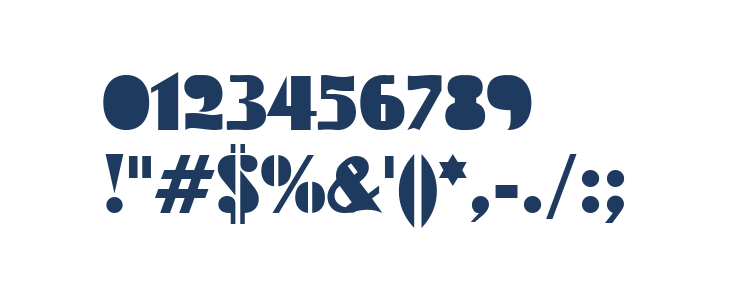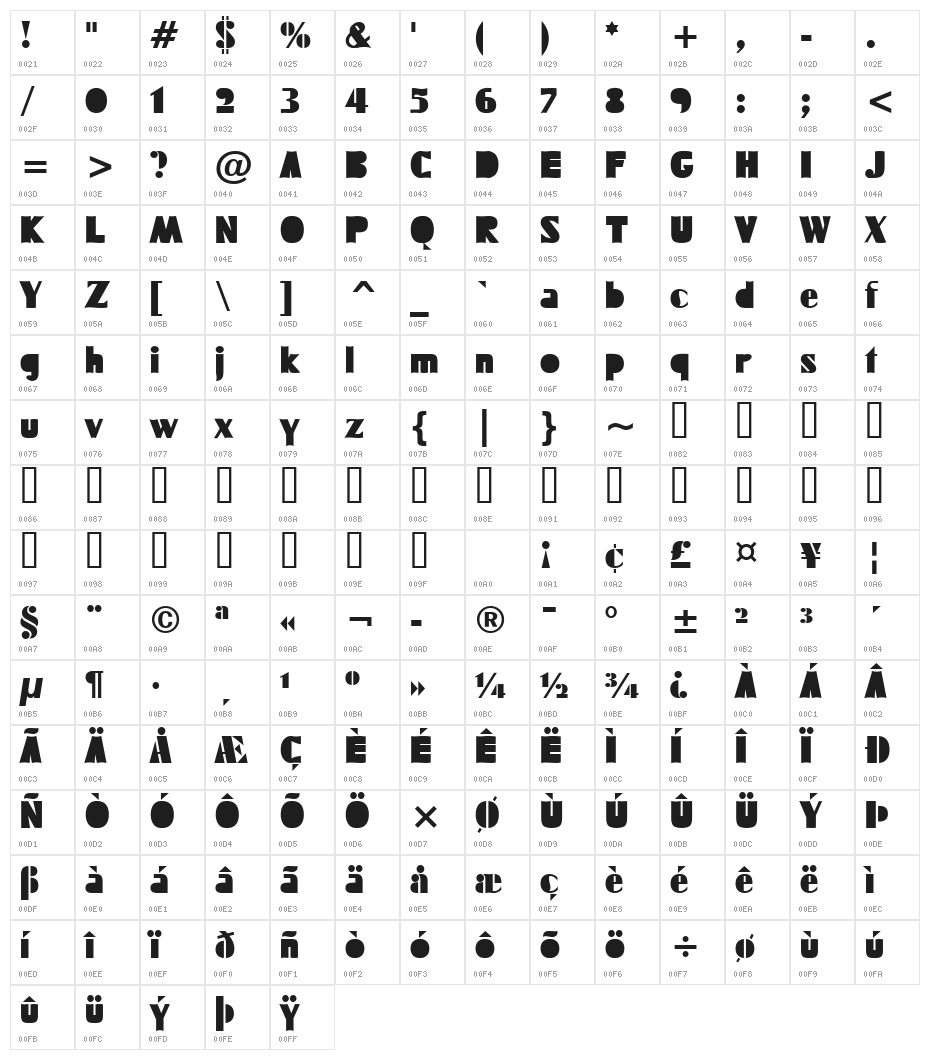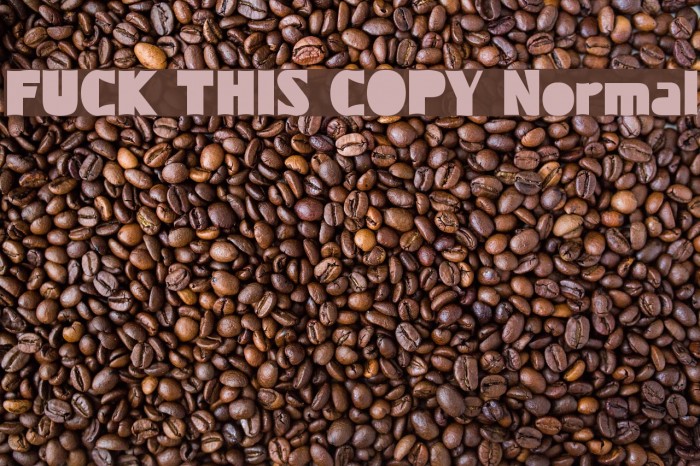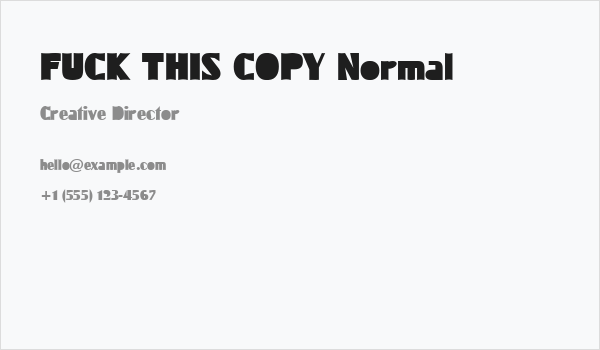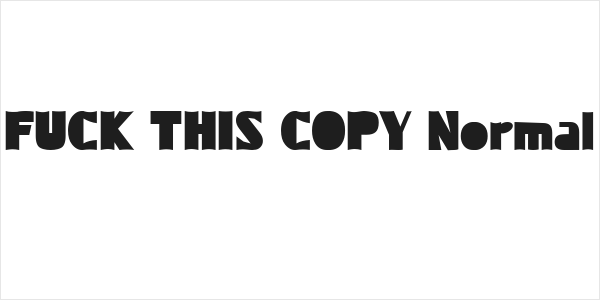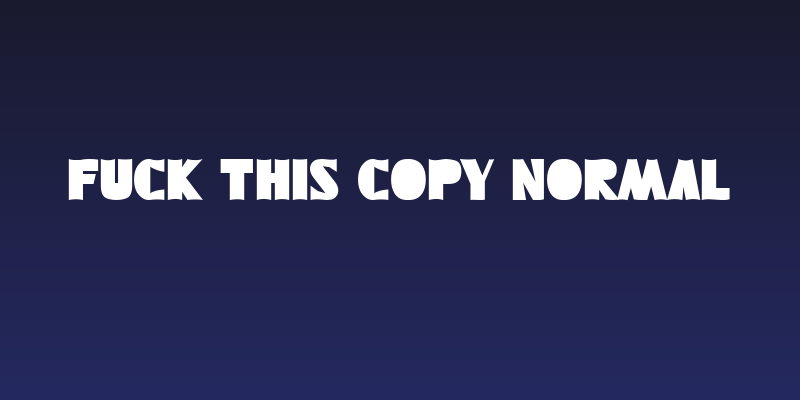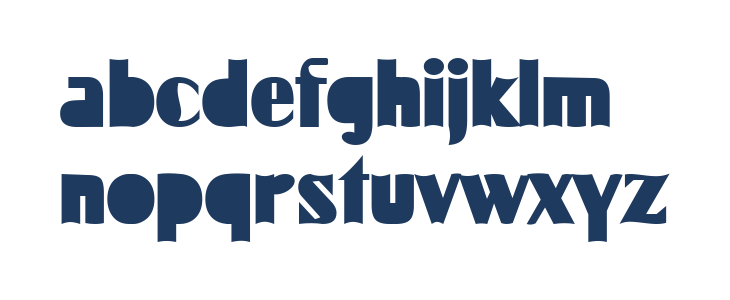
FUCK THIS COPY Normal Font
FUCK THIS COPY Normal Description
This font features a bold and dynamic style with a strong presence. The characters are designed with a unique geometric flair, incorporating sharp angles and wide curves that create a sense of movement and energy. The uppercase letters are particularly striking, with a blocky and robust appearance that commands attention. The lowercase letters maintain the boldness but with slightly softer edges, providing a nice contrast. Numbers and special characters are equally bold, ensuring consistency across all elements. This font is ideal for making a statement and is perfect for projects that require a strong visual impact.
Proposed ProjectsIdeal for posters, logos, headlines, and branding materials that require a strong visual impact.